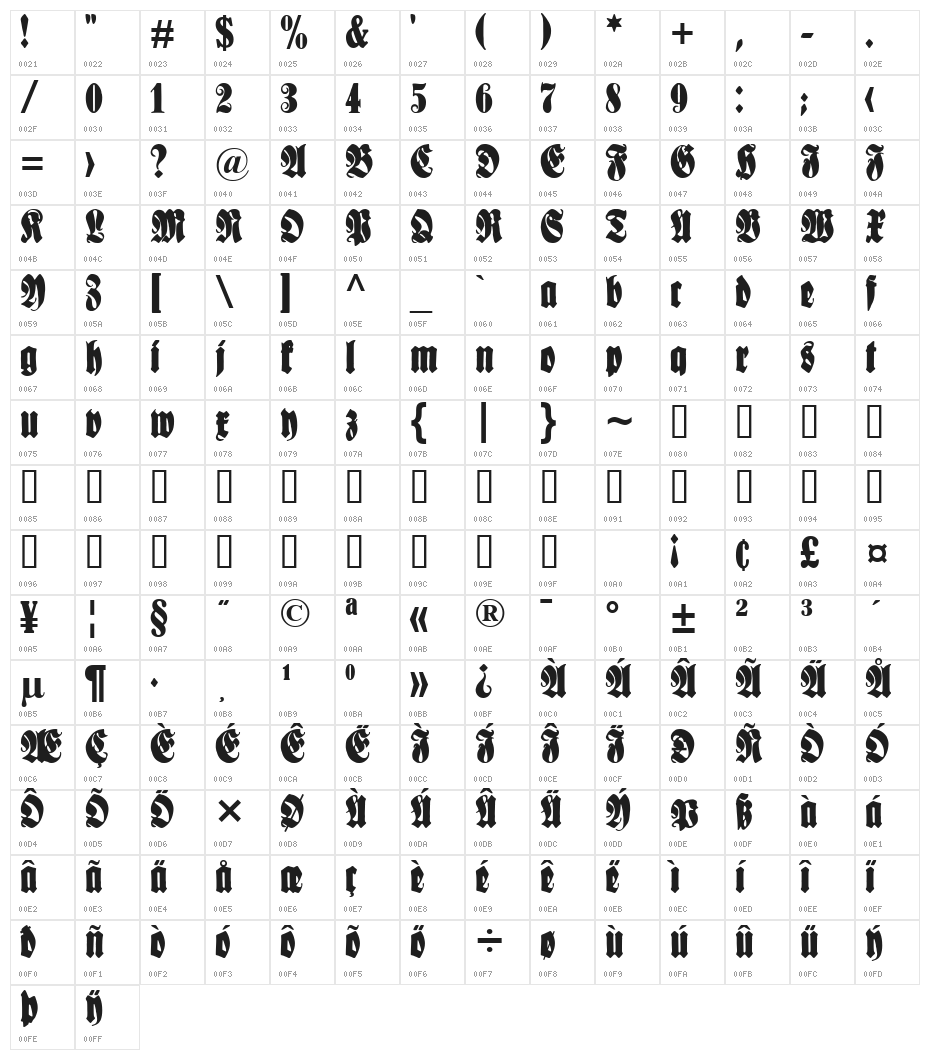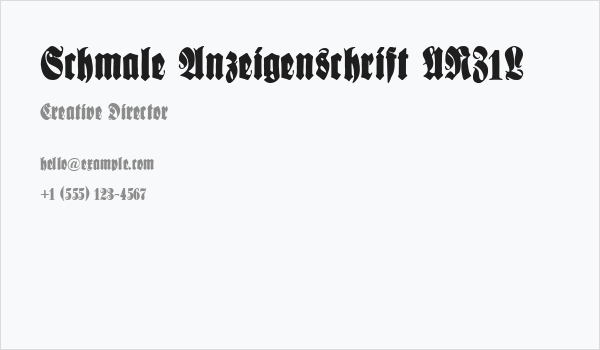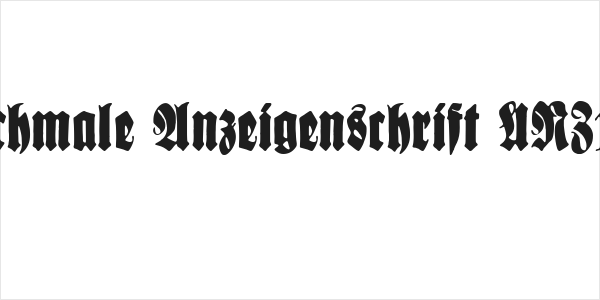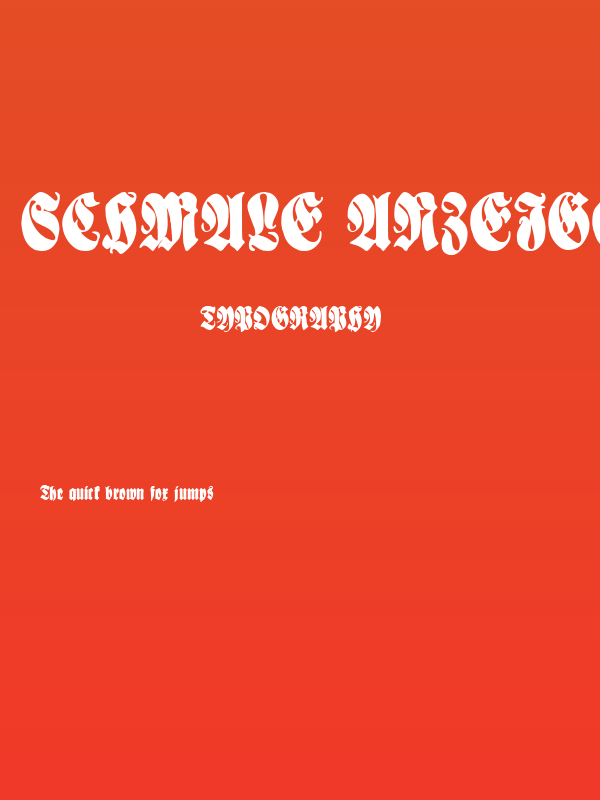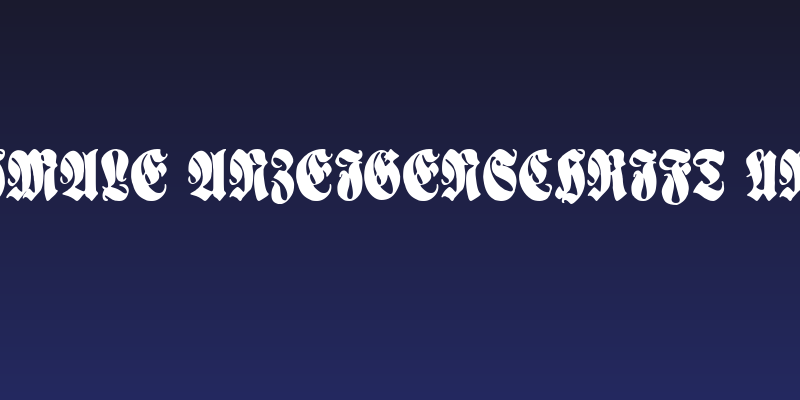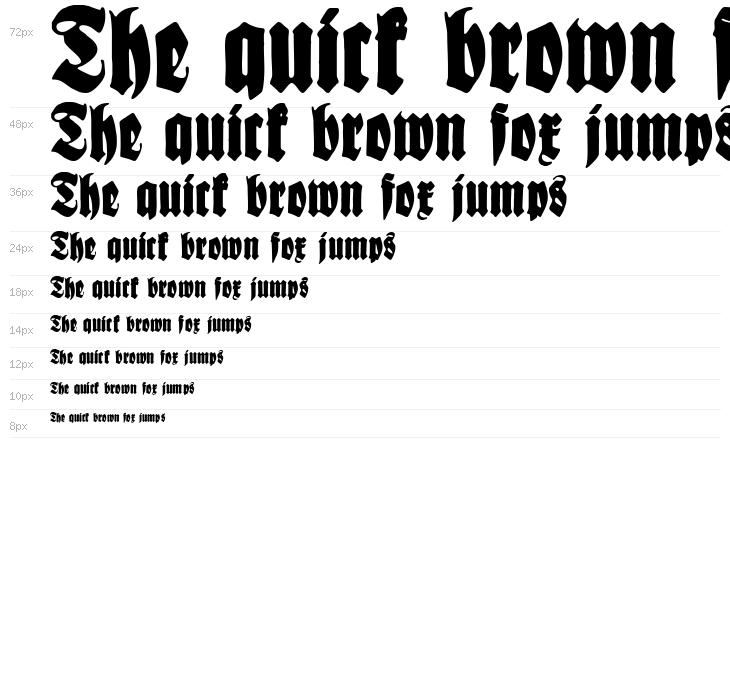
Schmale Anzeigenschrift UNZ1L Font
Schmale Anzeigenschrift UNZ1L Description
This font features a bold and ornate design, reminiscent of traditional blackletter styles. The characters are intricately detailed with sharp, angular edges and elaborate flourishes, giving it a dramatic and historical appearance. The uppercase letters are particularly striking, with a strong presence and a sense of grandeur. The lowercase letters maintain the same level of detail, ensuring consistency throughout the typeface. Numbers and special characters are equally stylized, adding to the overall cohesive look. This font is ideal for projects that require a touch of elegance and a nod to historical typography.